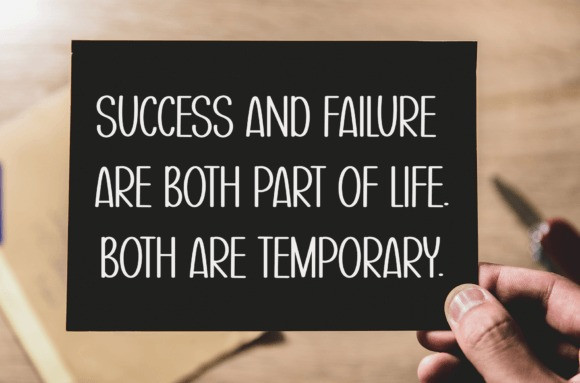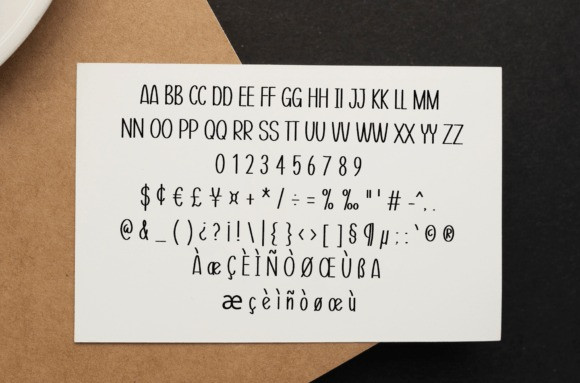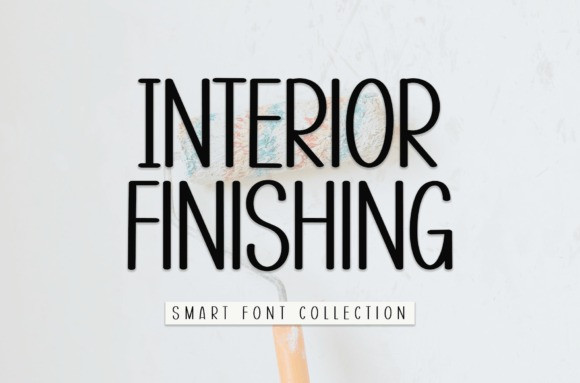
Interior Finishing Font
Interior Finishing Font is a cool and modern handwritten font. Whether you’re using it for crafts, digital design, presentations, or creating greeting cards, this font has the potential to be your go-to font, whatever the occasion.